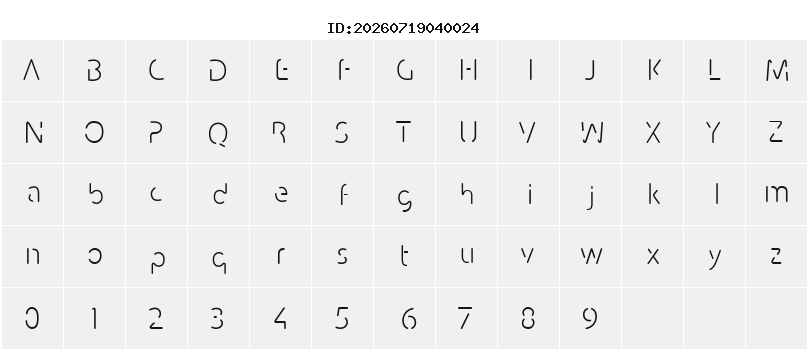
Conhaq Preview
• Font Name: Conhaq
• Full Font Name: Conhaq
• Manufacturer: Atila Milanio
About Conhaq.ttf
Conhaq.ttf is a modern, elegant sans-serif font designed for ultimate readability and visual harmony. Perfect for branding, headlines, web design, and print materials.